Black Cliffs A Free Font
Black Cliffs is a free font. This handwritten font is a cool and modern font. A unique handwritten look makes it perfect for use in all your design projects like logos, labels, signatures, packaging design, blog headlines. Using this font will definitely make your text stand out.
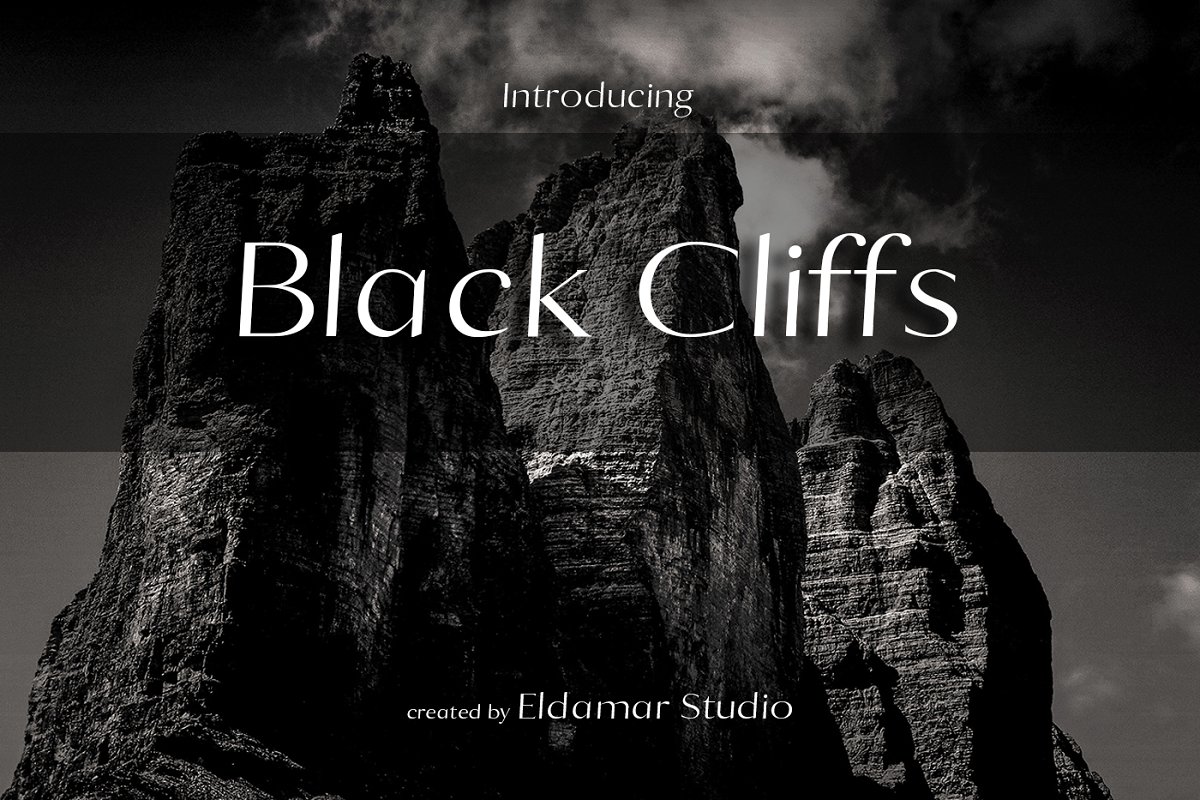
Playlist Free Font
Playlist is a perfectly imperfect handdrawn font with dry brush styles. Playlist Free Font contains 3 styles: Script, Caps, and Ornament, which you can combine to create beautiful designs. Playlist Free Font can be used in any purposes; personal and commercial. It is suitable for wedding invitation, greeting card, illustration, quotes, poster, t-shirt design, etc.
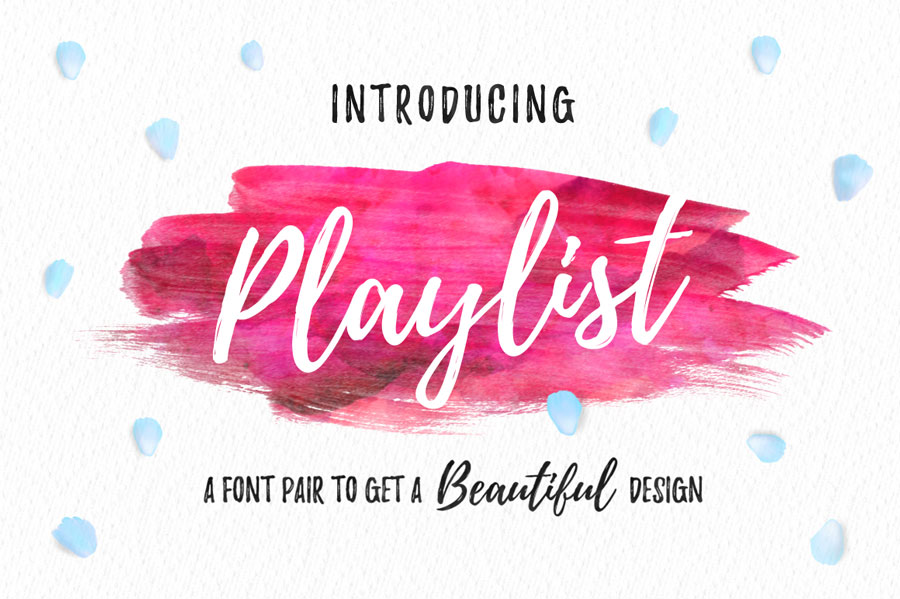
Antaro- Free Font
Antaro Font is a beautiful handwritten free font. Anataro is free font for commercial use and you can add uniqueness and detail look to your designs with this font. Combine this font with displays, logos, headers, weddings, save the dates, invitations, titles, web layouts, branding and more.
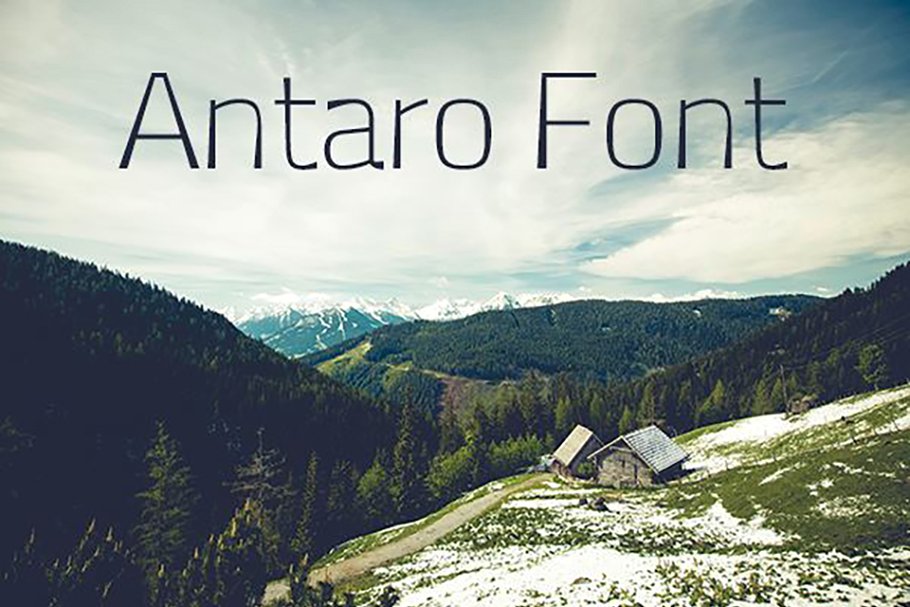
Sunday Holiday
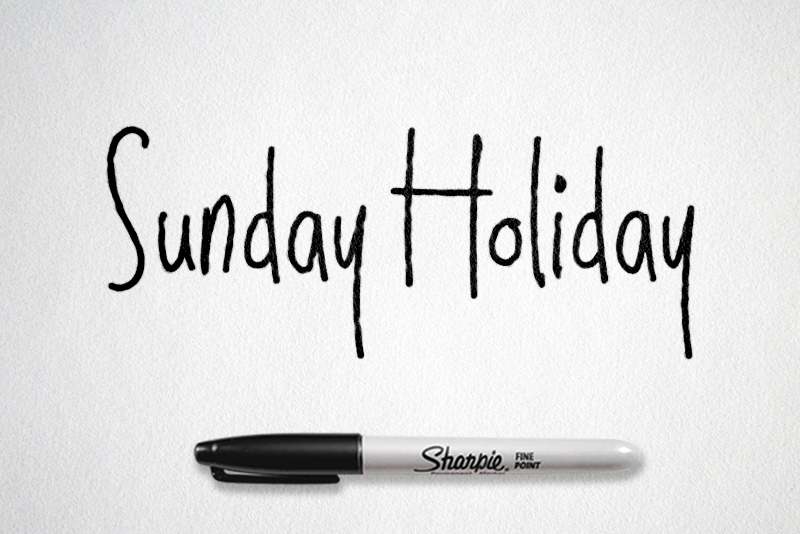
It comes with many opentype feature, upper and lower case standard character, punctuation and numerals, multilingual characters, ligatures, stylistic alternates, and many more glyph. It can be used for personal and commercial projects. It is perfect for your company logos, branding, posters, flyers, greetings, invitations, book covers, quotes, and many more.